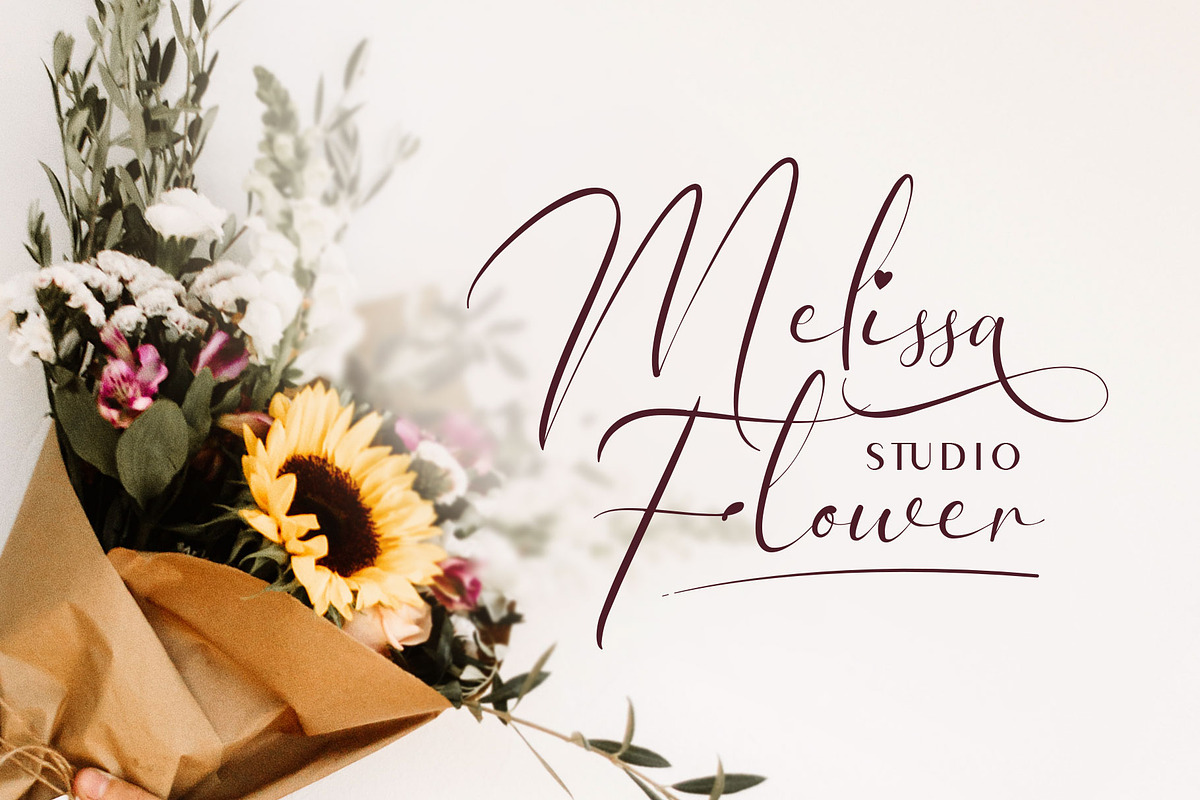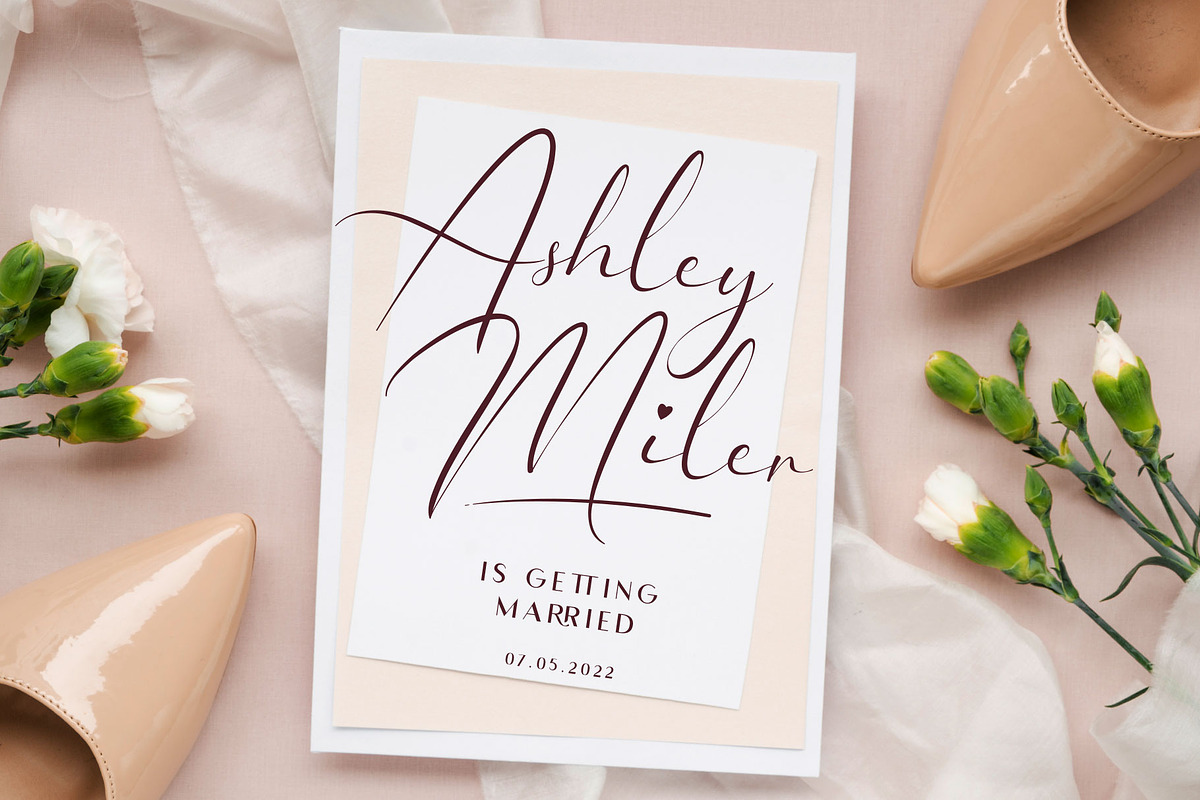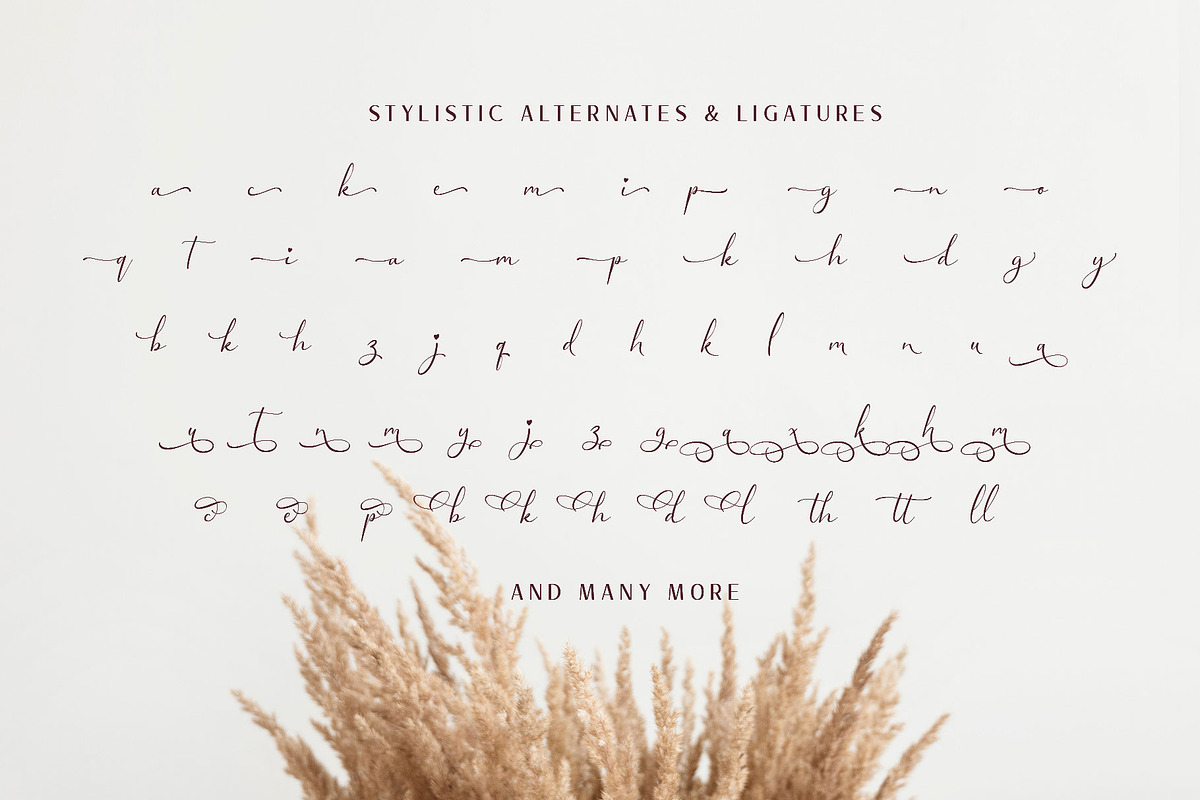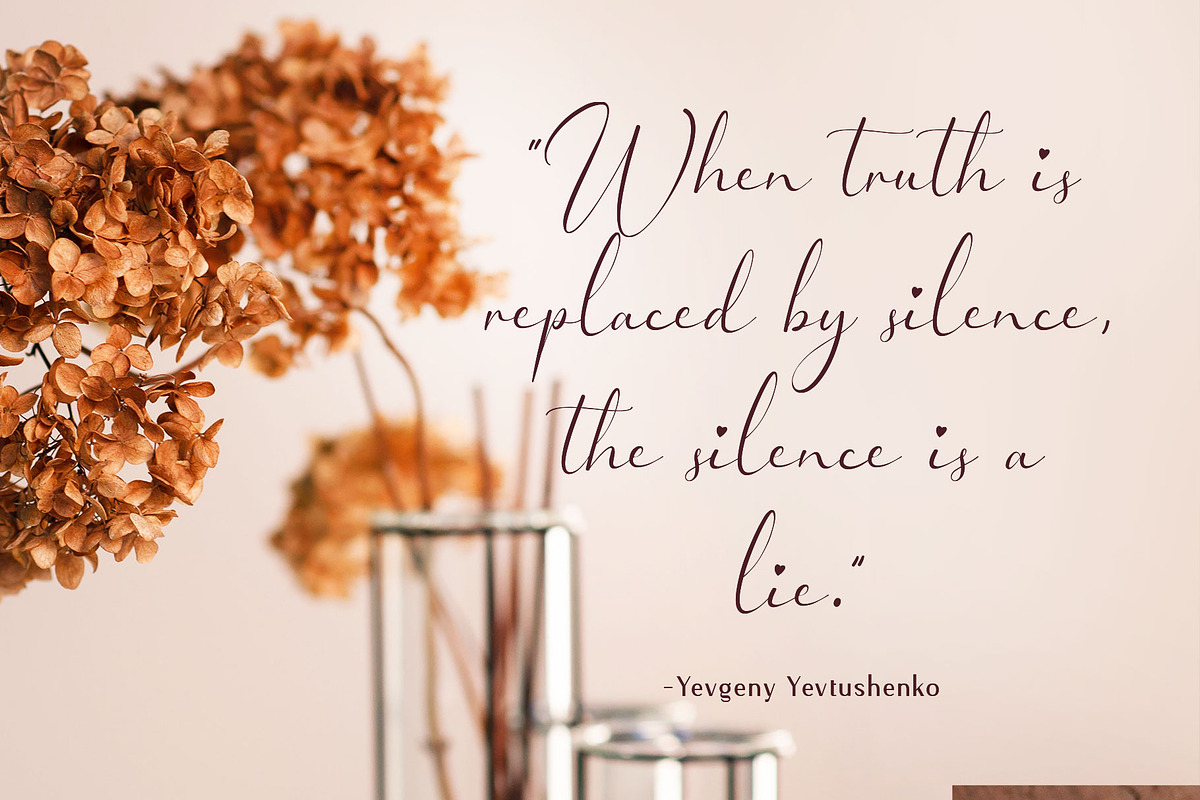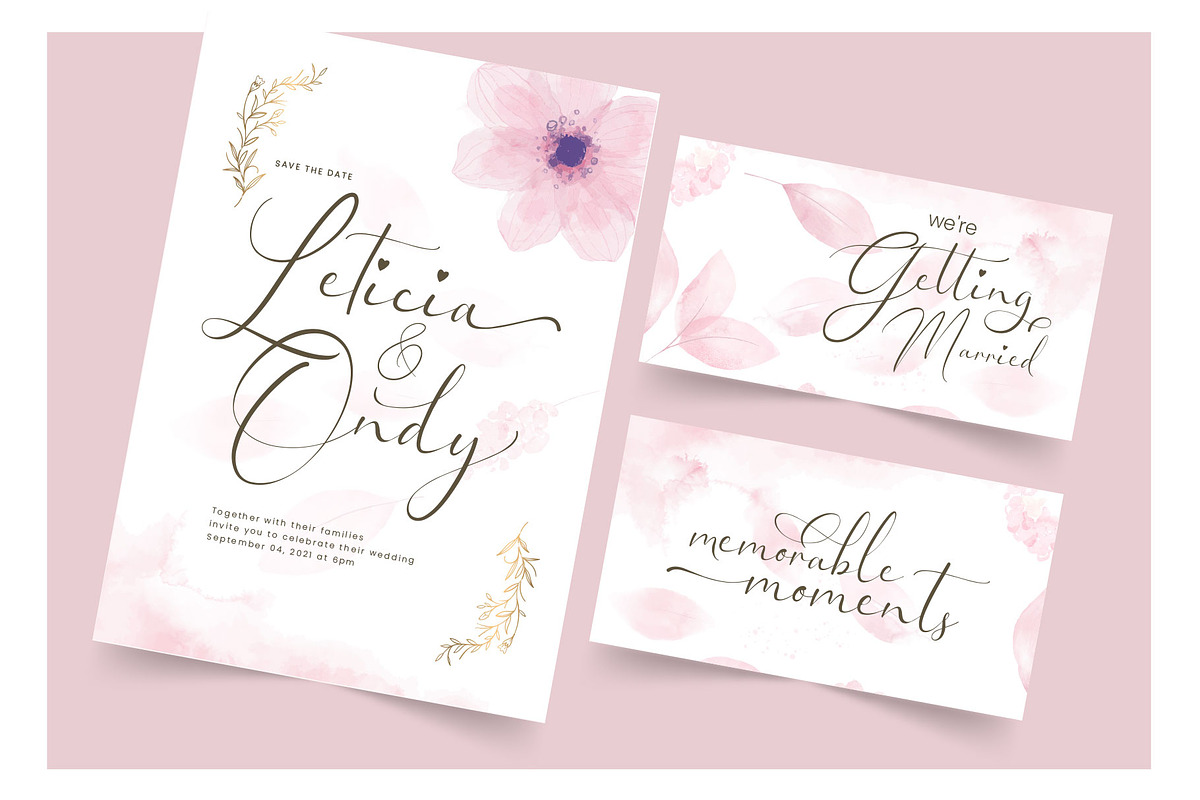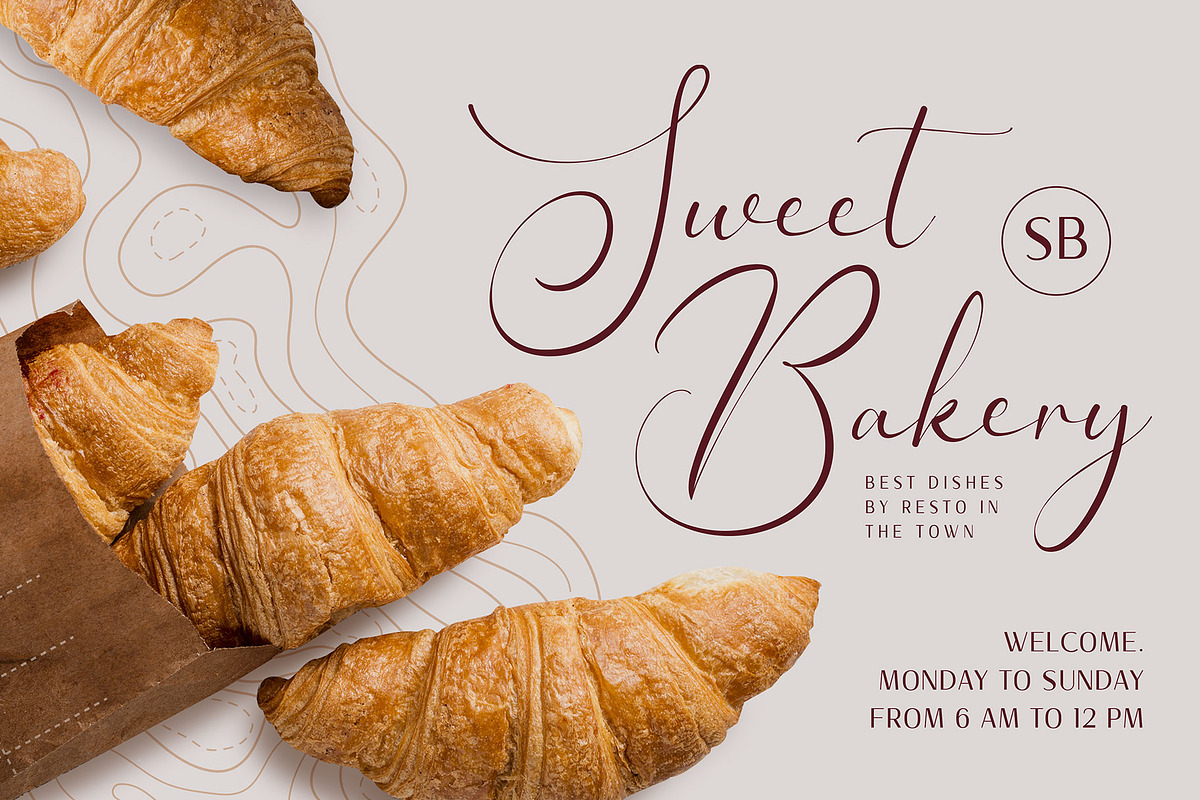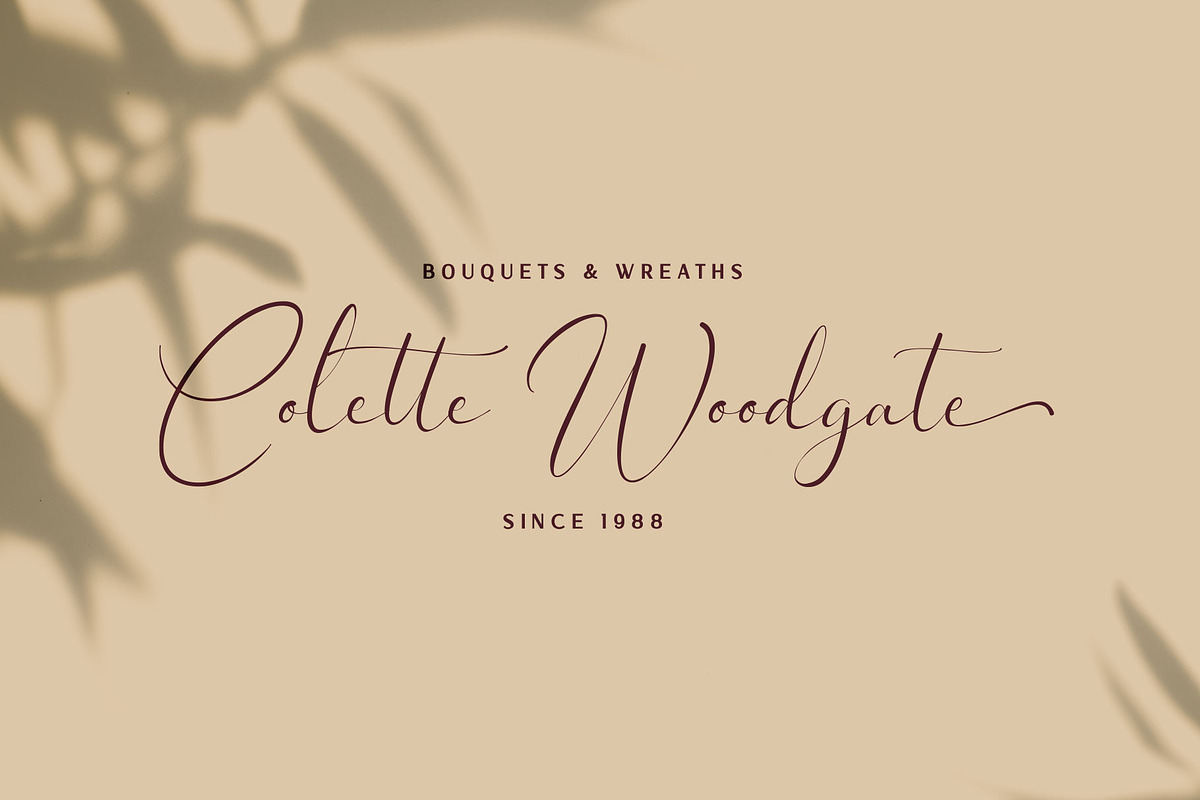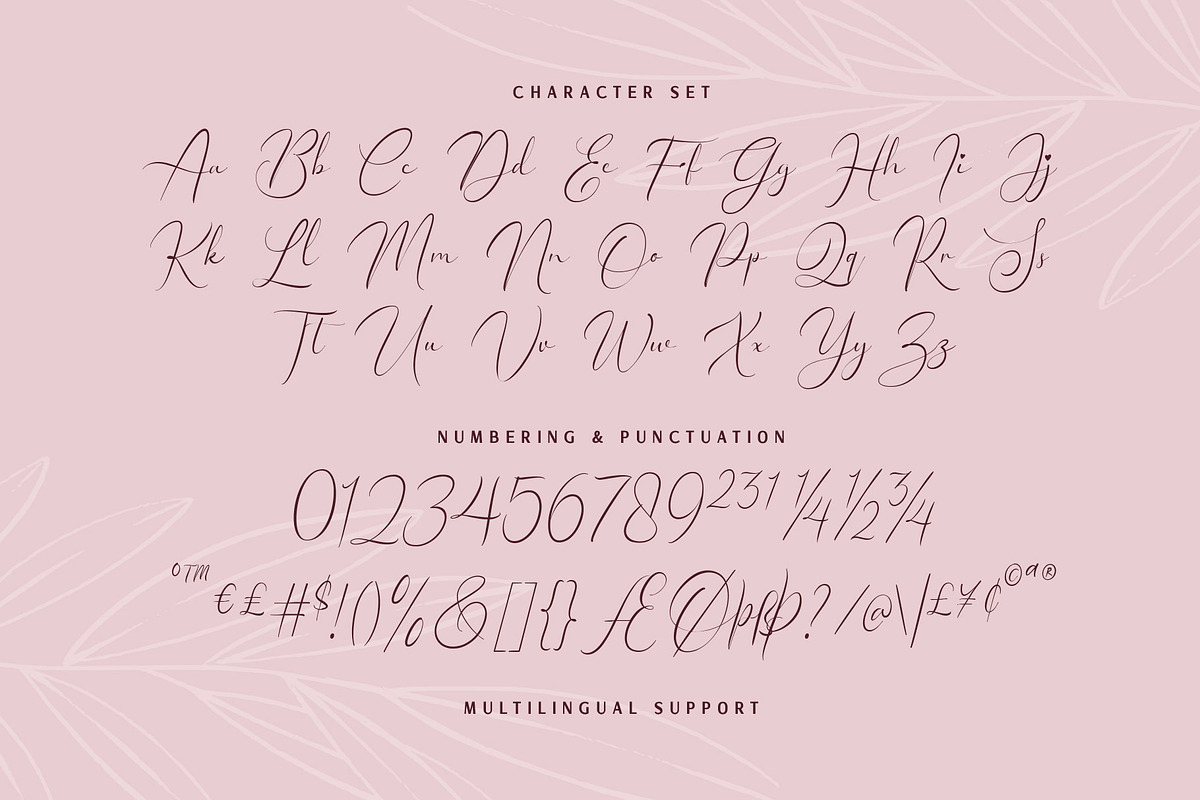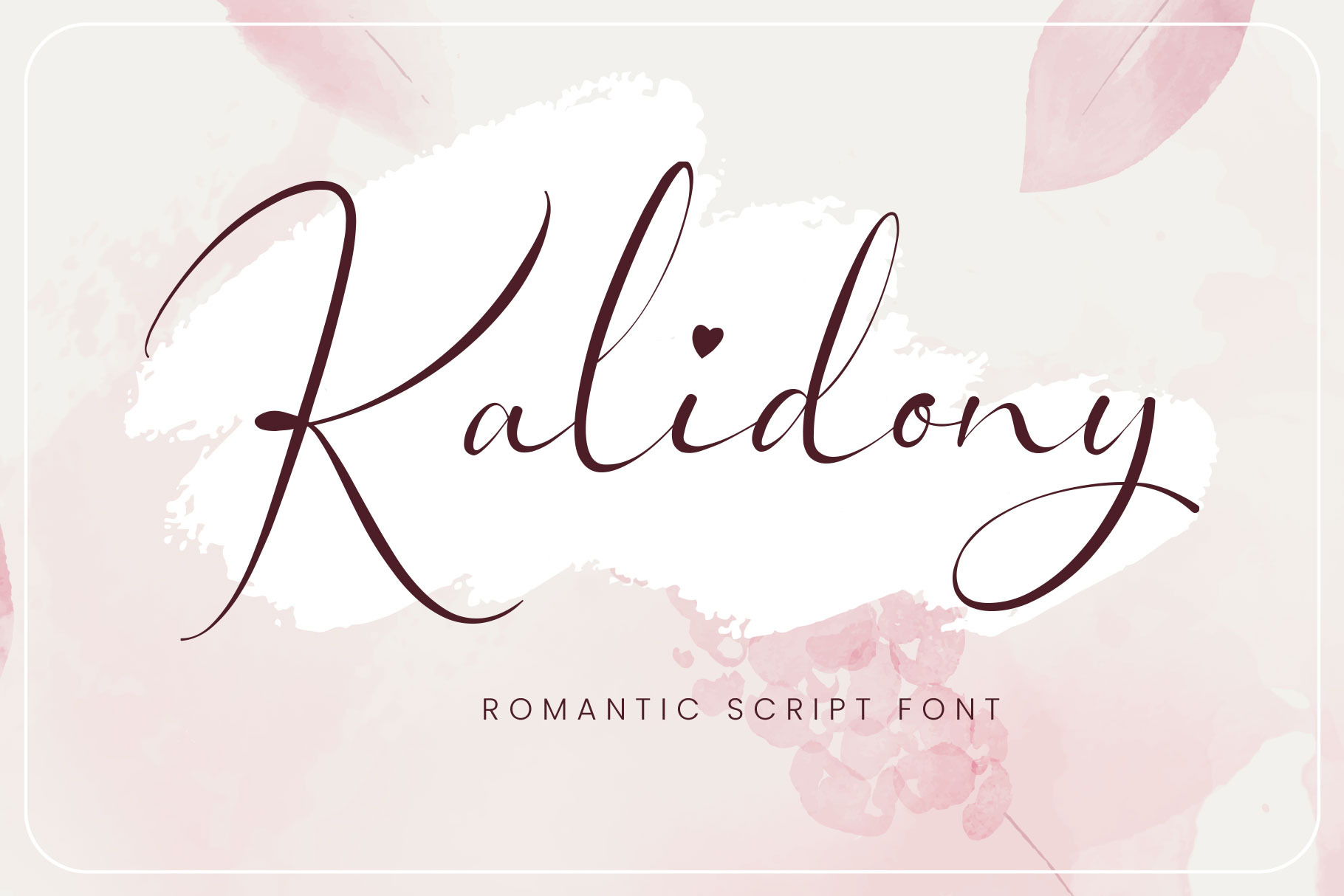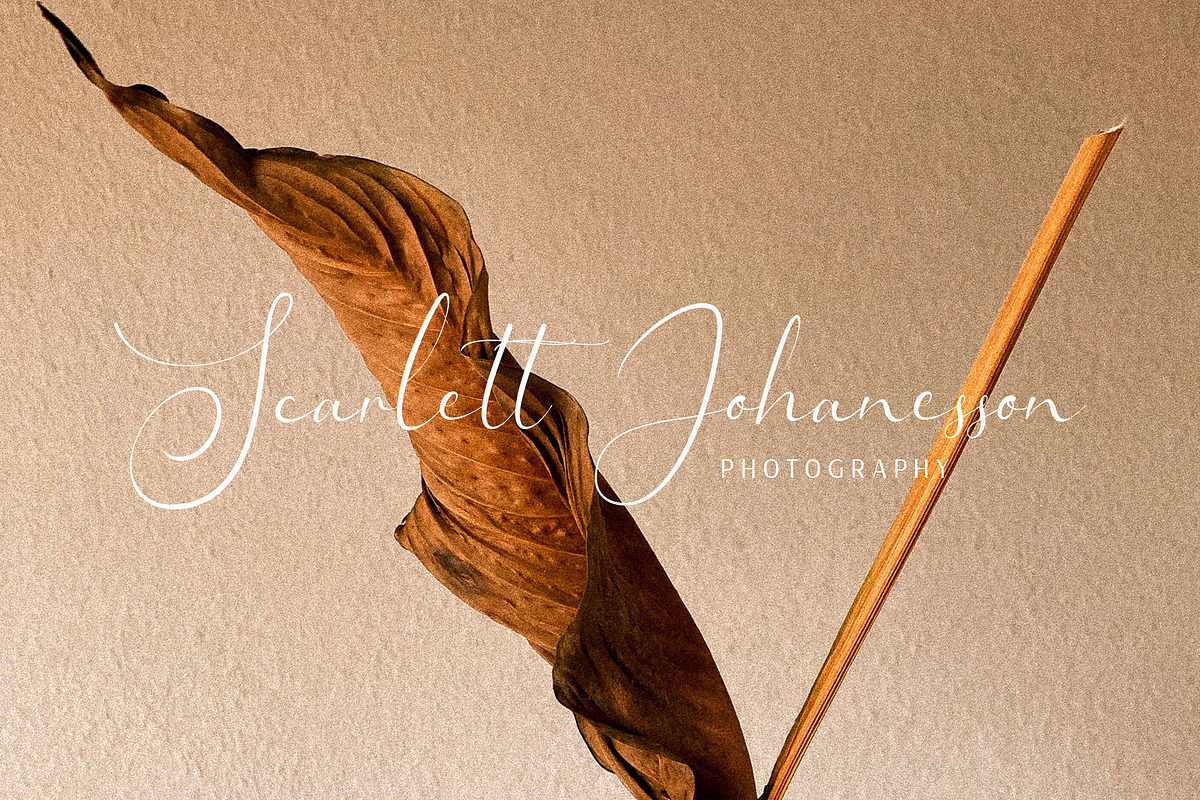
Kalidony - Lovely Font
Kalidony is a wonderful wedding typeface. Inspired by the upscale wedding design and the luxury woman stuffs. Kalidony represents a classy impression with beautiful thick & thin strokes.
Kalidony is perfect for elegant design which requires natural handwriting or signature style. Equipped with many alternate characters that give your design a floral touch and look calmer. You can use this typeface for wedding purposes, greeting cards, invitations, logotype, books, packaging, and more!
Kalidony features:
- Complete standard character set, symbols & punctuations
- Stylistic alternates set: ss01 - ss09
- Multilingual support: ÀÁÂÃÄÅÆÇÈÉÊËÌÍÎÏÐÑÒÓÔÕÖרÙÚÛÜÝÞßàáâãäåæçèéêëìíîïñòóôõöøùúûüýþÿĀāĂ㥹ĆćĈĉĊċČčĎ ďĐđĒēĔĕĖėĘęĚěĜĝĞğĠġĢģĤĥĦħĨĩĪīĮįİıIJijĴĵĶķĹĺĻļĽľĿŀŁłŃńŅņŇňʼnŌōŎŏŐőŒœŔŕŖŗŘřŚśŜŝŞşŠšŢţŤťŦŧŨ ũŪūŬŭŮůŰűŲųŴŵŶŷŸŹźŻżŽžȘșȚțẀẁẂẃẄẅ